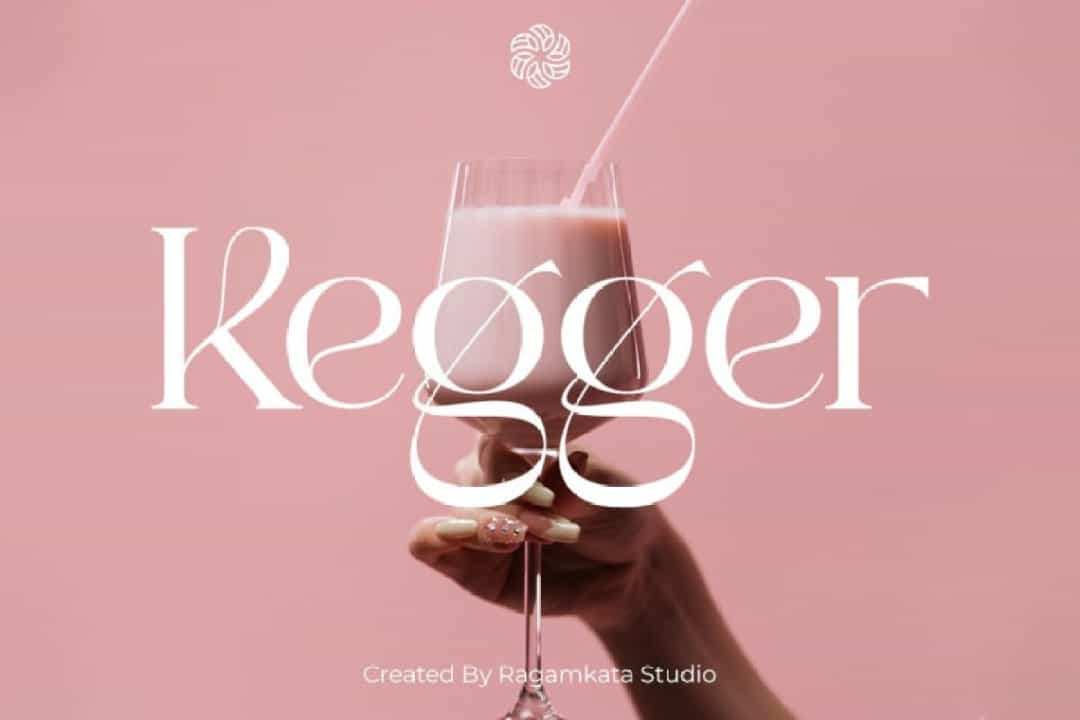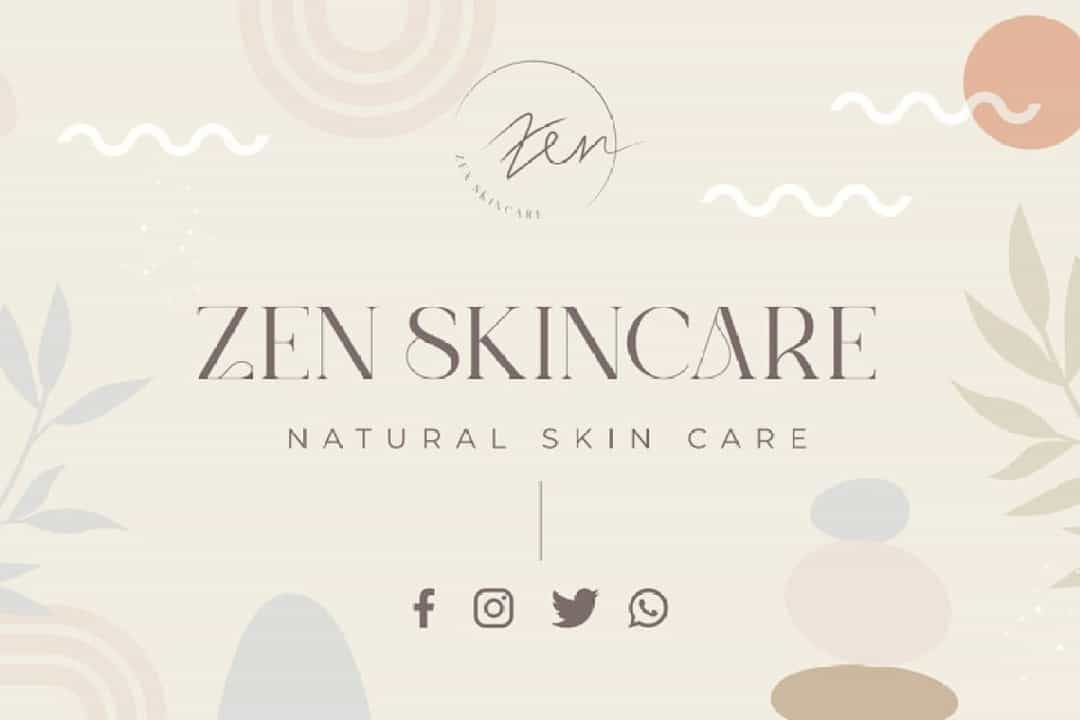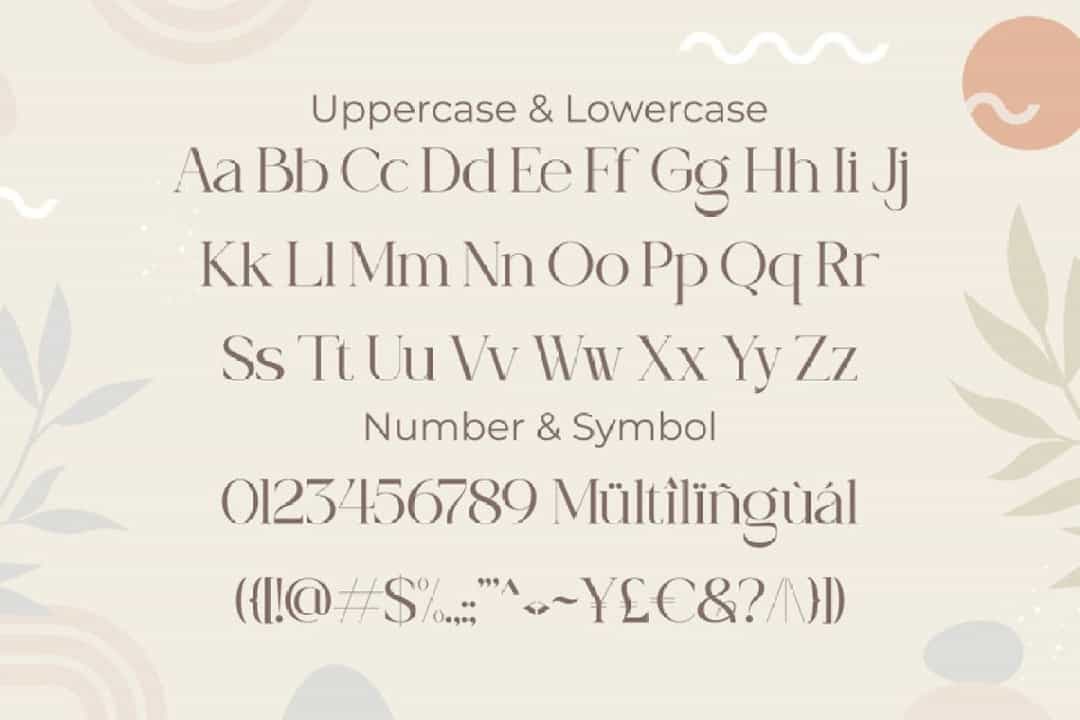
Kegger is a sophisticated display serif font featuring large letters with distinctive decorative features on each character. It has an elegant and timeless appearance while remaining relevant with today’s designs trends.